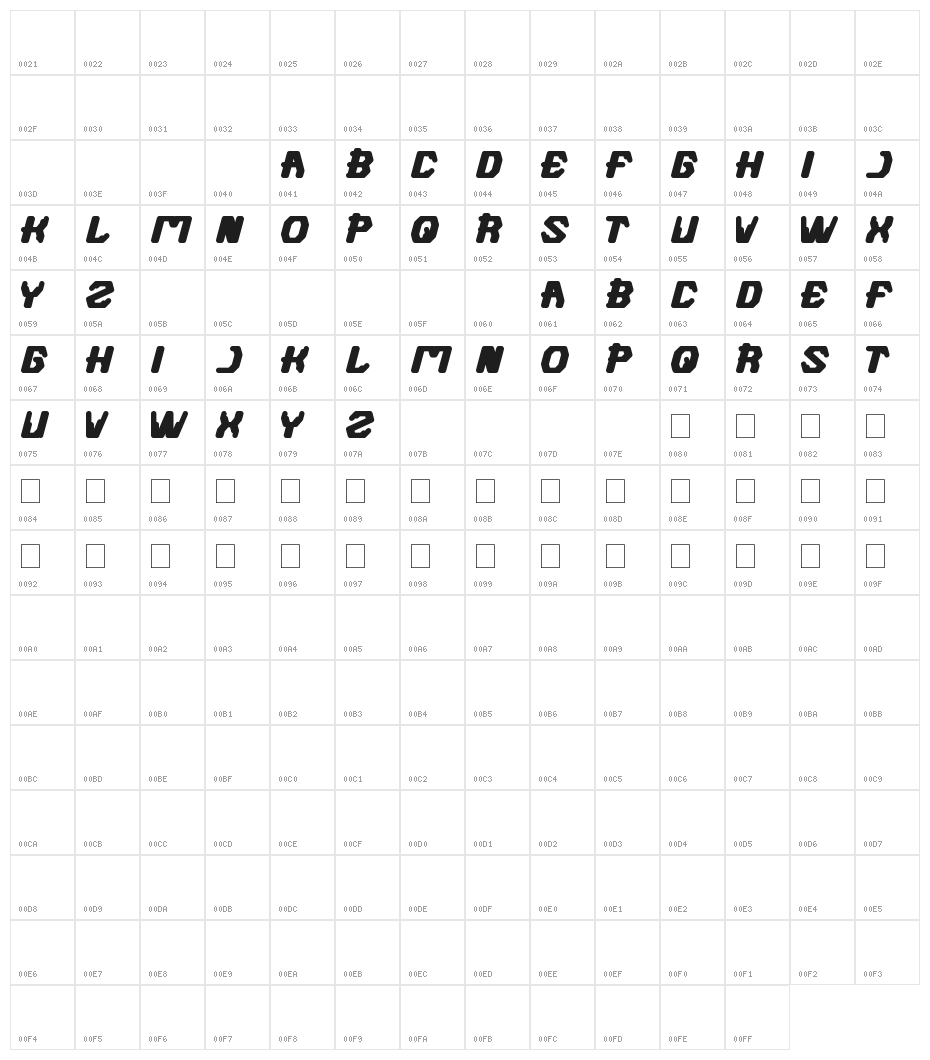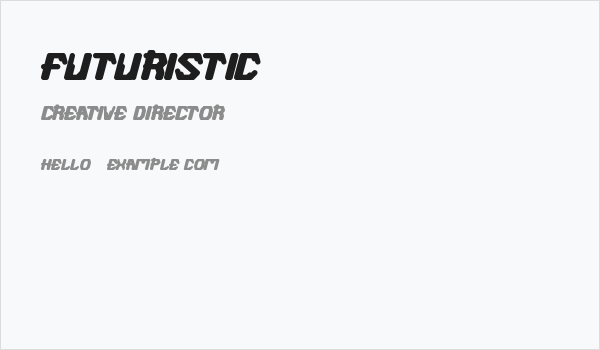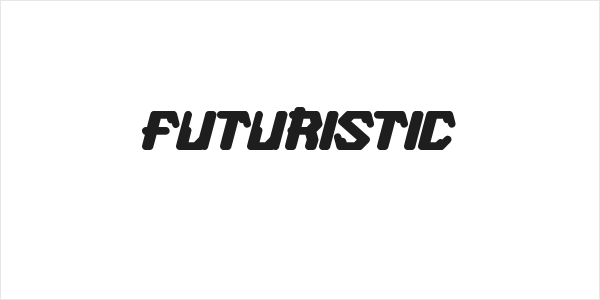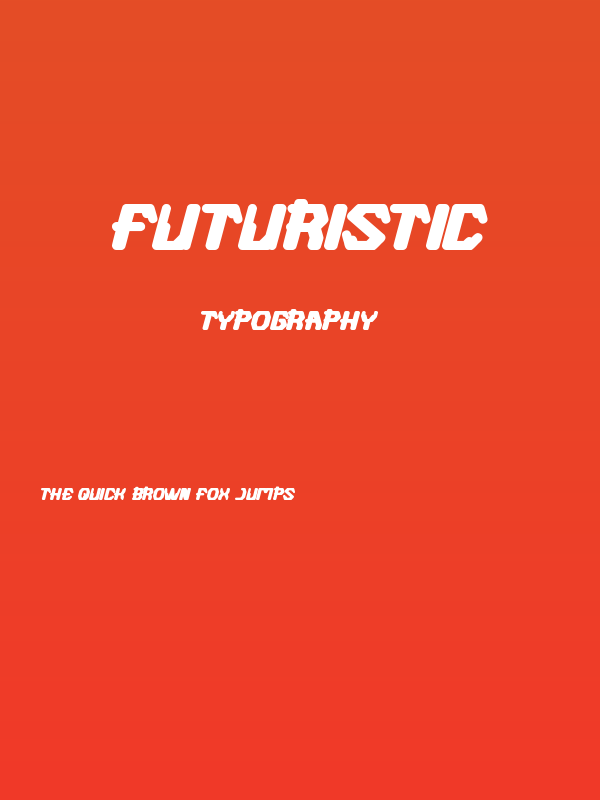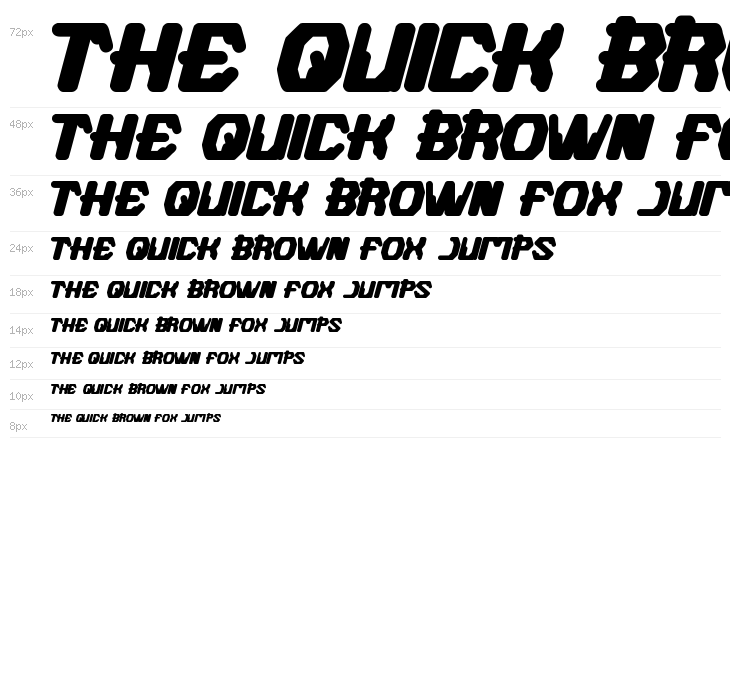
FUTURISTIC Font
FUTURISTIC Description
This font features a bold, futuristic design with a distinct geometric style. The characters are constructed with sharp angles and a consistent thickness, giving them a strong, impactful presence. The uppercase letters exhibit a uniform height and width, creating a cohesive look across the alphabet. The font's unique style is characterized by its angular cuts and dynamic shapes, making it ideal for modern and tech-oriented designs. Its boldness ensures high visibility and readability, even from a distance, while the geometric elements add a touch of sophistication and innovation.